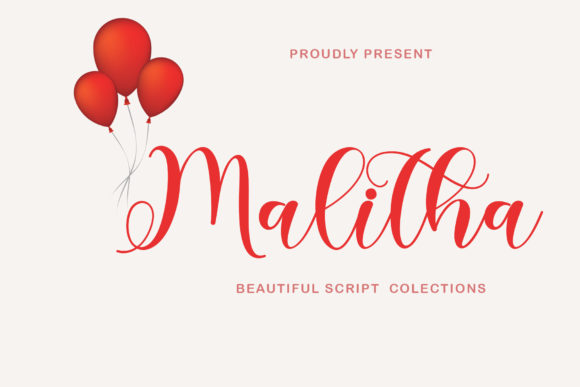
Unveil the Enchanting Beauty of Your Designs with Malitha: A Script Font Brimming with Grace and Elegance
In a world of digital artistry, Malitha emerges as a beacon of creative expression, a font family that radiates elegance and grace. This script font, meticulously crafted by Selvia Design, is an ode to the beauty of handwritten artistry, capturing the essence of delicate strokes and flowing lines.
With Malitha, your designs will transcend the ordinary, exuding an air of sophistication and charm. Its carefully balanced characters harmonize seamlessly, creating a captivating visual symphony that resonates with viewers. Whether you're crafting enchanting invitations, designing heartfelt greeting cards, or adding a touch of elegance to your website, Malitha will be your steadfast companion, guiding you towards creative excellence.
This font's PUA encoding is a testament to its versatility, granting you effortless access to a treasure trove of glyphs and ligatures. Unlock the door to endless creative possibilities, where each letter dances gracefully upon the page, forming words that whisper tales of love, joy, and heartfelt emotions.
Harness the Allure of Malitha in Your Creative Pursuits:
- Embark on a Journey of Design Excellence: Let Malitha be your muse, inspiring you to create designs that captivate and enchant.
- Express Your Artistic Vision: Unleash your creativity and use Malitha to manifest your innermost artistic visions, transforming them into tangible masterpieces.
- Craft Enduring Impressions: With Malitha, your designs will leave a lasting impact, etching themselves into the minds of your audience, creating memories that endure.
Malitha: The Perfect Font for Your Easter Basket Designs:
Celebrate the joy of Easter with Malitha, the font that perfectly captures the spirit of this joyous occasion. Its delicate strokes and elegant curves evoke the essence of spring, imbuing your designs with a sense of renewal and rebirth. Create enchanting Easter cards, design festive invitations, or add a touch of whimsy to your Easter decorations with Malitha. Let your creativity bloom and let Malitha guide you towards designs that radiate Easter cheer.